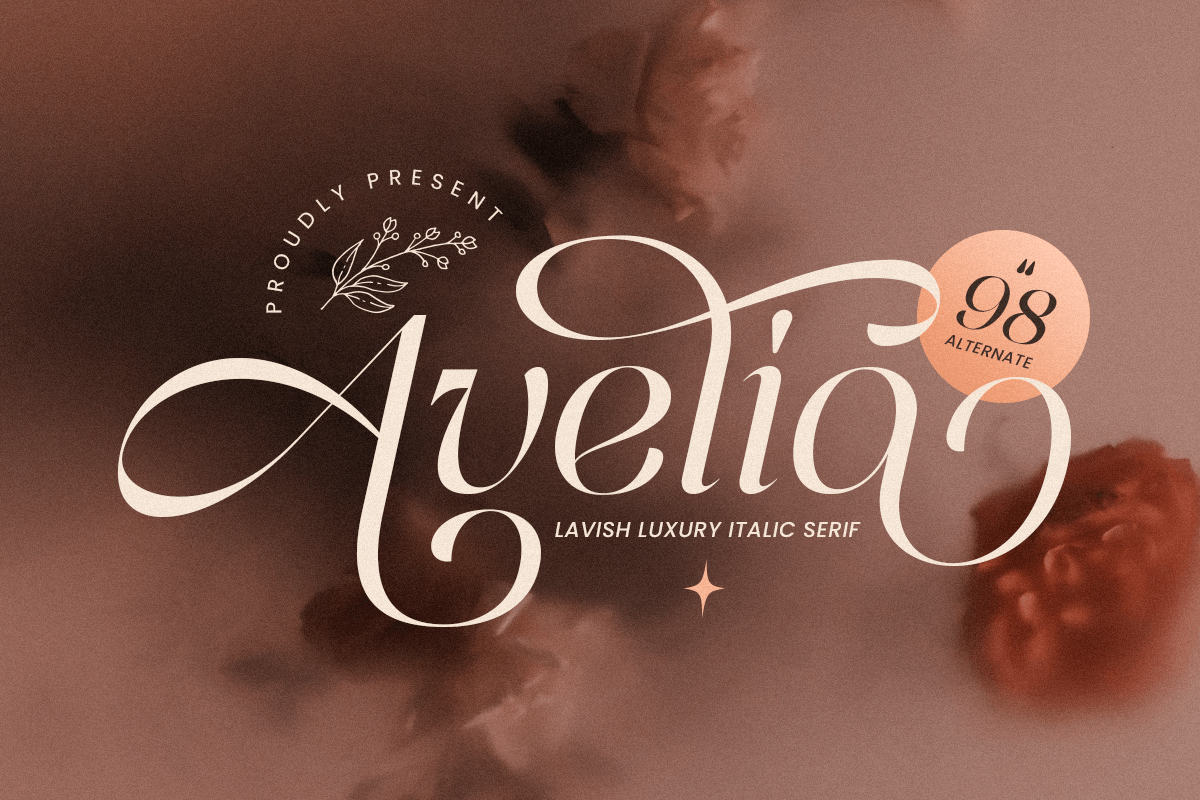
Avelia
-Lavish Luxury Italic SerifAvelia - Lavish Luxury Italic Serif
Avelia is a lavish luxury italic serif font crafted for those who appreciate the finest in typography. With its refined curves and graceful letterforms, Avelia embodies sophistication and exclusivity. Inspired by classic calligraphy with a contemporary touch, it’s the perfect choice for premium branding, fashion editorials, and luxury invitations.
Designed for Prestige and High-End Aesthetics
This font radiates elegance and is designed to elevate any project that demands a touch of class. Whether you’re creating a luxurious logo, upscale packaging, or a stylish wedding invitation, Avelia enhances every detail. Its fluid italic strokes add movement and grace, making it an excellent choice for high-fashion advertisements, beauty product branding, and editorial layouts.
Versatile, Elegant, and Exclusive
Avelia’s lavish appearance makes it a go-to font for designers aiming to create timeless visuals. From magazine headlines to perfume packaging, this font delivers a sense of exclusivity. If you’re looking for a typeface that speaks luxury, sophistication, and high-end appeal, Avelia is the perfect addition to your collection.